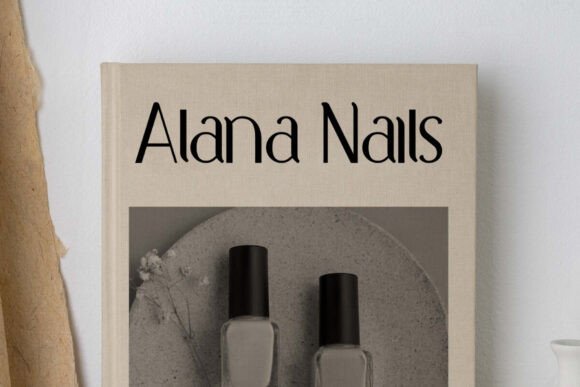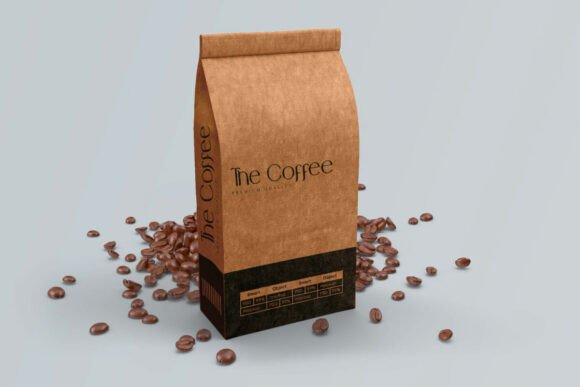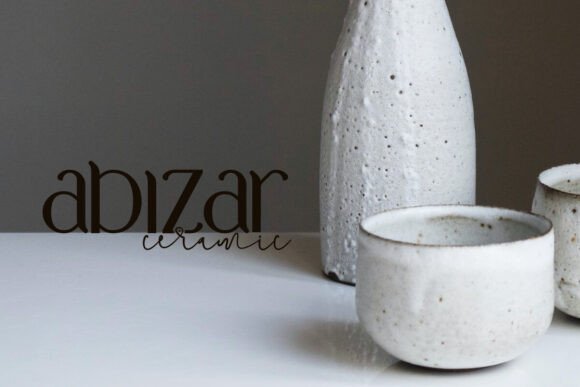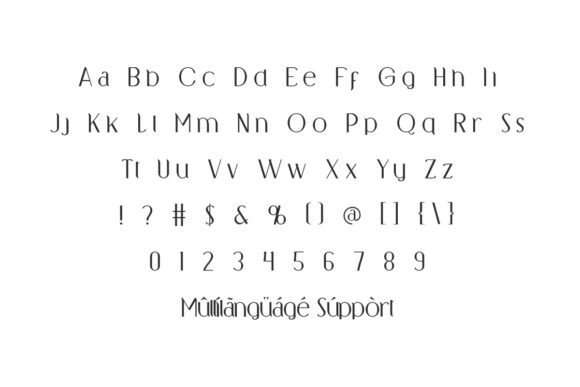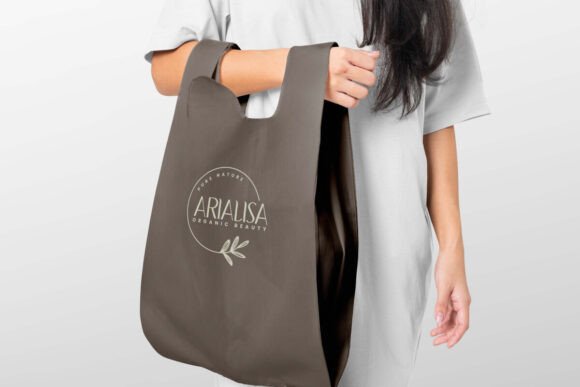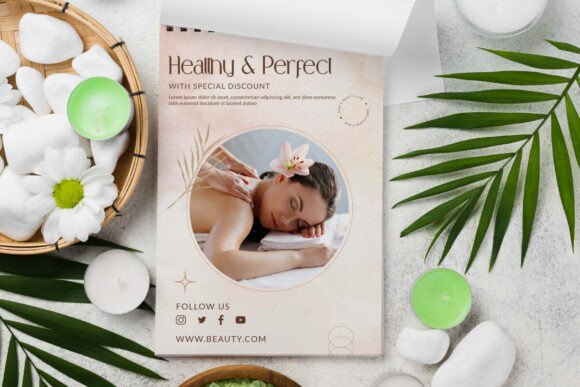
The Arialisa Font: A Timeless Elegance for Creative Projects
I’ll never forget the time I was working on a project for a boutique client, and I was struggling to find the perfect font to capture the essence of their brand. The font had to be elegant, yet casual; classic, yet modern. It was like searching for a needle in a haystack. That’s when I stumbled upon the Arialisa font, and it was love at first sight! 💕
Arialisa is a beautiful classic and casual sans serif display font that exudes a natural elegance, making it perfect for enhancing various businesses, such as architect, beauty clinic, boutique, café, clothing brand, coffee place, construction, cosmetic, earthenware, event organizer, fashion, florist, furniture, handicraft, interior design, jewelry, nail care, photography, printing, publishing, real estate, restaurant, skincare, spa salon, writer, and more.
An Honest Review of Arialisa Font
What I Love About Arialisa Font ✨
- ✅ Elegant and Classic Design: Arialisa font boasts a timeless design that works well for both digital and print projects.
- ✅ Casual and Friendly Feel: Despite its elegance, the font has a friendly and approachable vibe, making it perfect for businesses that want to connect with their audience.
- ✅ Versatile and Adaptable: Arialisa font can be used for a wide range of projects, from logos and branding to advertising and marketing materials.
- ✅ Easy to Read: The font is clear and legible, even at smaller sizes, making it perfect for body text and captions.
While Arialisa font is an excellent choice for many projects, there are a few things to keep in mind:
- 🤔 Limited Character Set: Arialisa font may not have an extensive character set, which can limit its use for certain languages or special characters.
- 🤔 Not Suitable for Body Text: While the font is easy to read, it’s not ideal for long blocks of body text. It’s best used for headlines, titles, and captions.
The Designer Inspiration Behind Arialisa Font
The Arialisa font was designed with the intention of creating a timeless and elegant sans serif font that would work well for a wide range of projects. The designer aimed to create a font that would exude a natural elegance, making it perfect for businesses that want to connect with their audience.
| Author | NihStudio |
Q: What is the Arialisa font best used for?
A: Arialisa font is best used for headlines, titles, and captions, as well as logos and branding materials.
Q: Is Arialisa font suitable for body text?
A: While Arialisa font is easy to read, it’s not ideal for long blocks of body text. It’s best used for shorter texts, such as captions and titles.
Q: Is Arialisa font available in different weights and styles?
A: Yes, Arialisa font is available in different weights and styles, making it versatile and adaptable for various design projects.